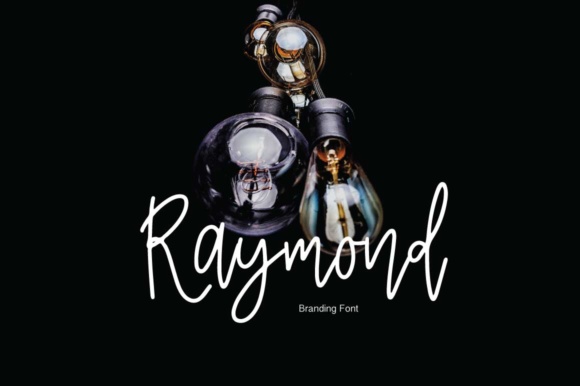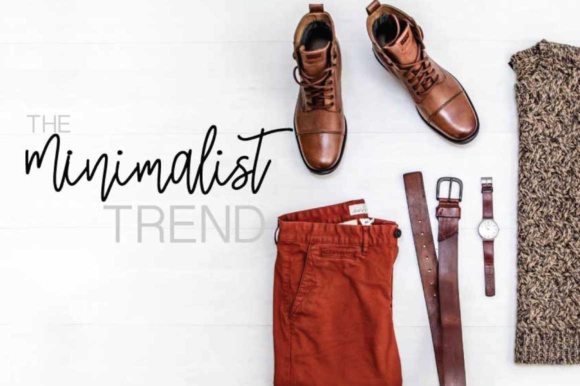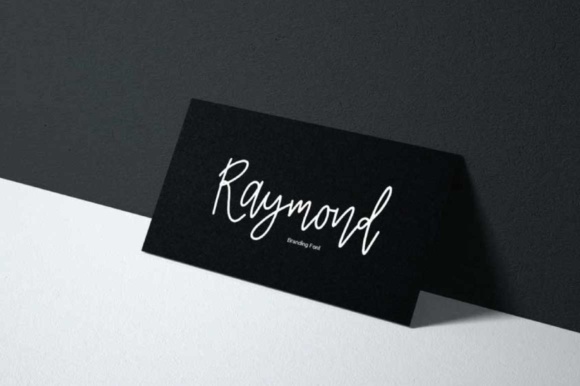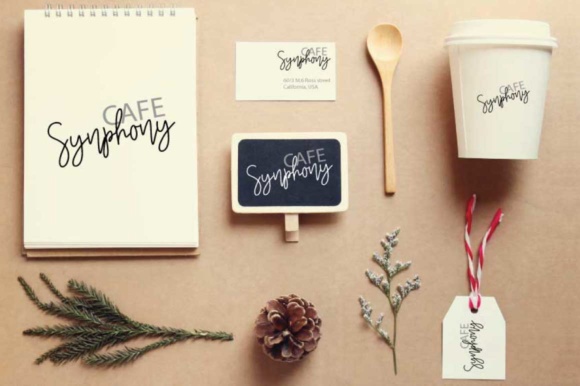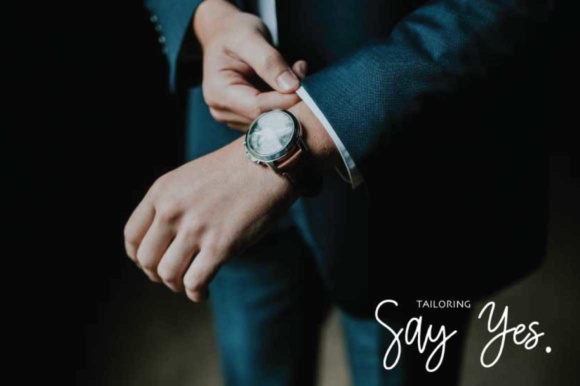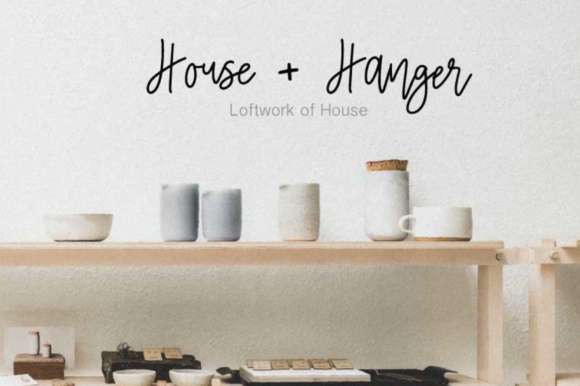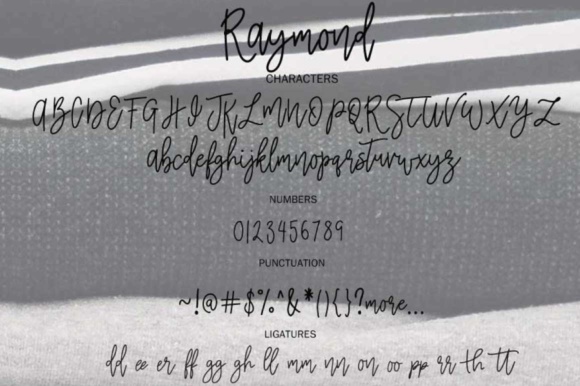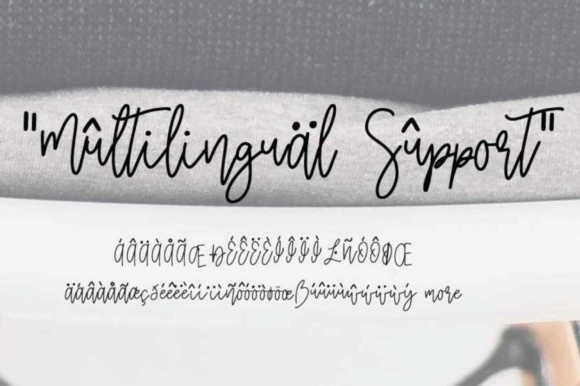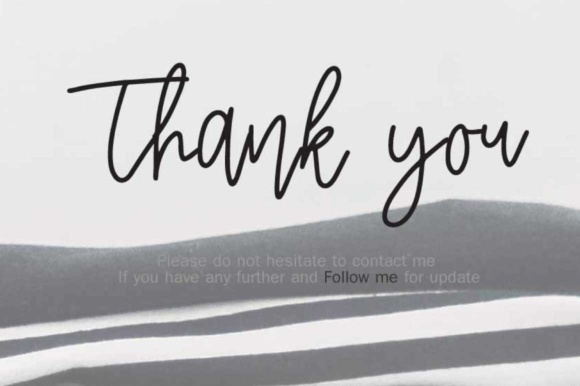
Raymond Font
About Raymond Font
The Raymond is an elegant, yet striking typeface. Its unique letters will make your designs stand our, therefor it’s the perfect branding font.